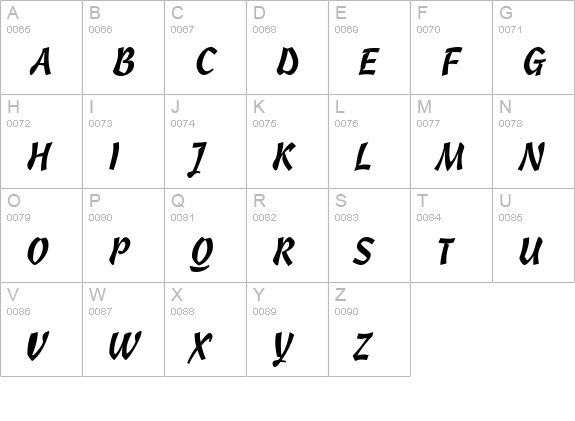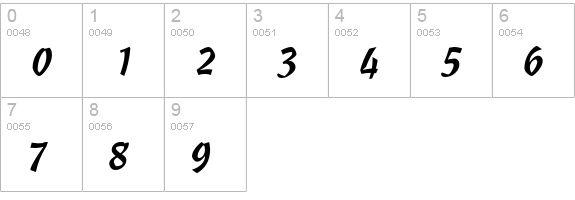
TR Cassia Font Details
TR Cassia font is a beautifully crafted typeface that exudes elegance and sophistication. Its sleek and modern design makes it perfect for a wide range of projects, from branding to editorial design. The clean lines and unique flourishes of TR Cassia font give it a timeless quality that is sure to make your text stand out. What makes TR Cassia font even more appealing is that it is available for free download at FontsMarket.com. This means that you can add this stunning typeface to your collection without having to spend a dime. Whether you're a seasoned designer or just starting out, TR Cassia font is a versatile and eye-catching choice that will elevate your work to the next level.